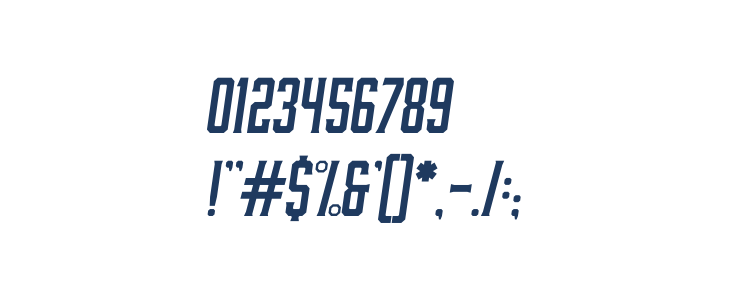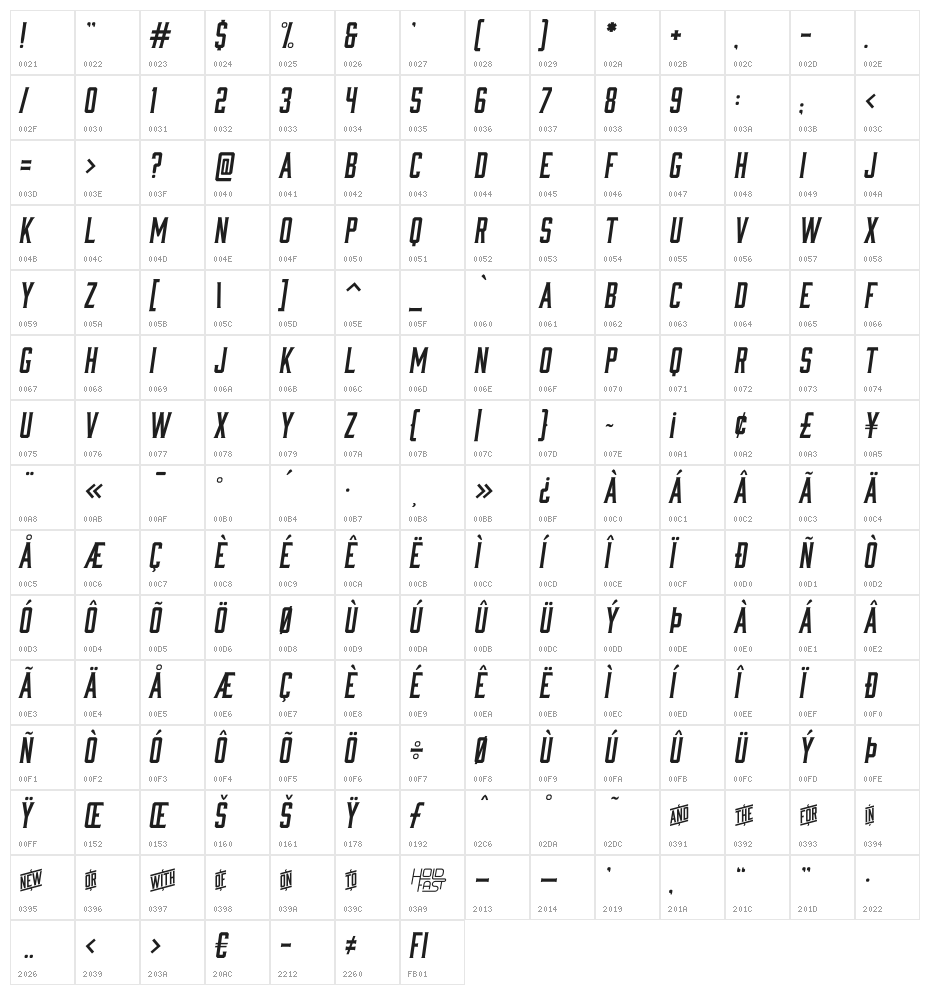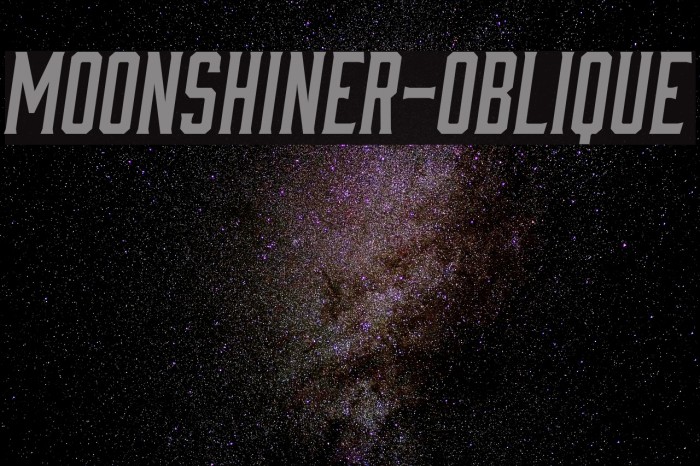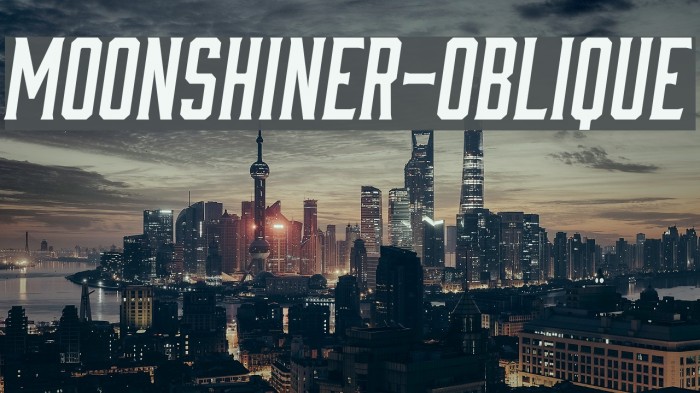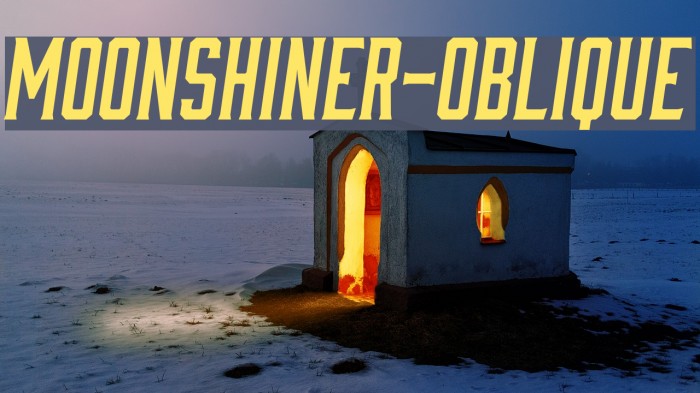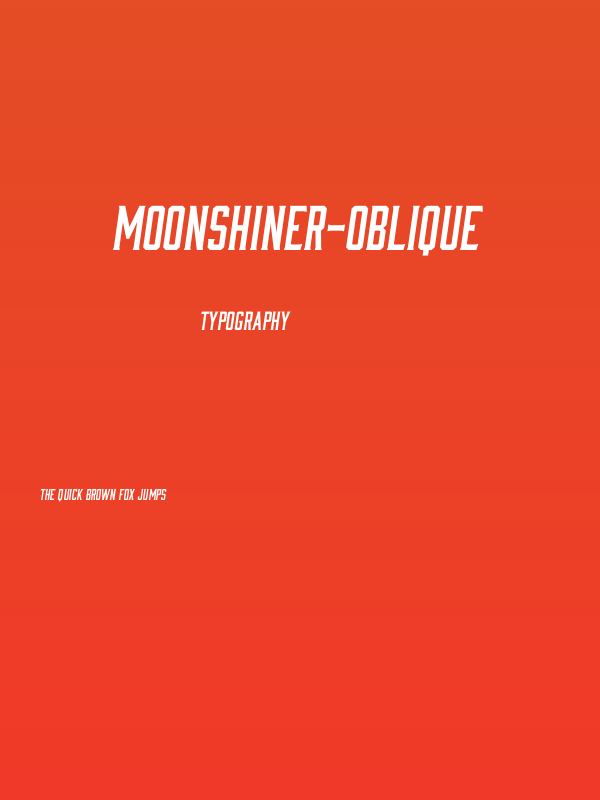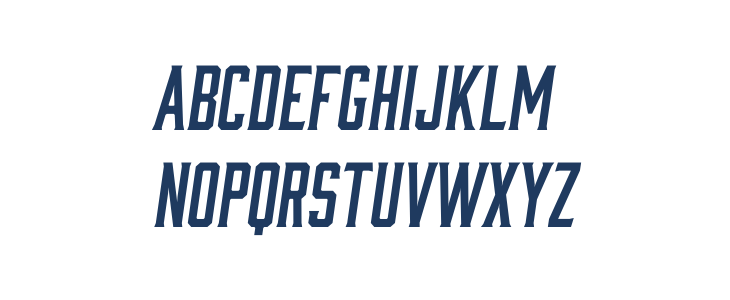
Moonshiner-Oblique Font
Moonshiner-Oblique Description
This font features a bold and dynamic oblique style, characterized by its sharp angles and strong presence. The uppercase letters are tall and narrow, giving a sense of urgency and movement. The lowercase letters maintain the same angular design, ensuring consistency throughout. Numbers are equally bold, with a slight slant that adds to the overall dynamic feel. Special characters are designed to match the assertive style, making them stand out effectively. This font is ideal for projects that require a bold statement and a modern, edgy look.